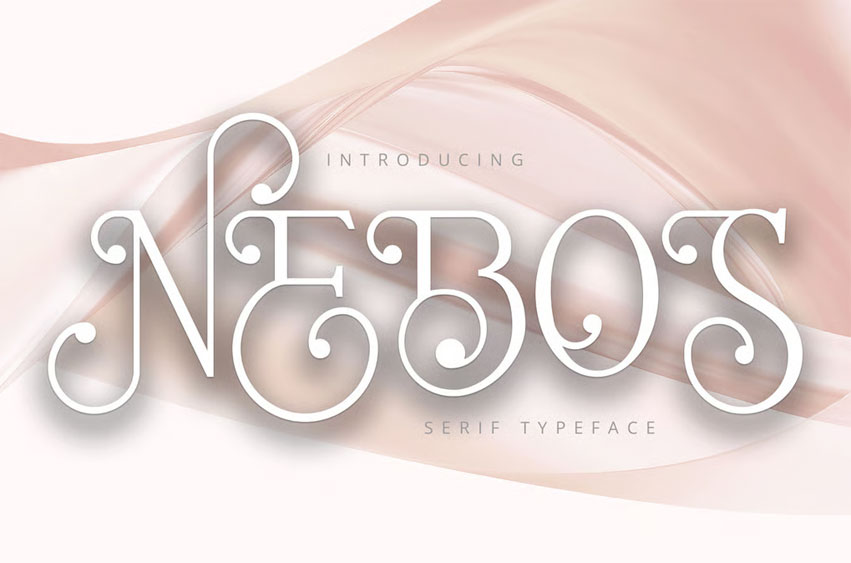
Nebos Font
Nebos Font is an extension of the standard serif font. Actually, the standard letters from Nebos are good enough to be used in various kinds of writing, but here Nebos Fonts tries to add many variations in the form of ligatures and unique and modern letter alternatives to support various design needs that use writing.
Nebos Font Preview